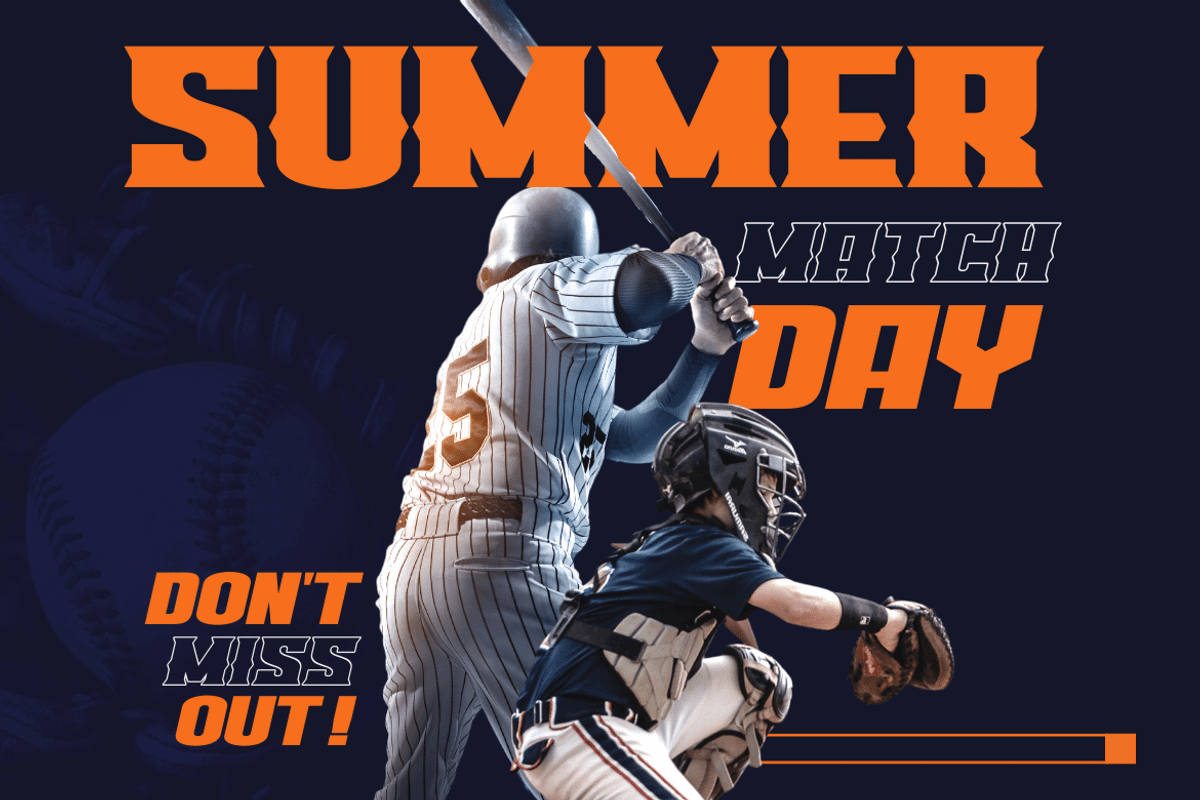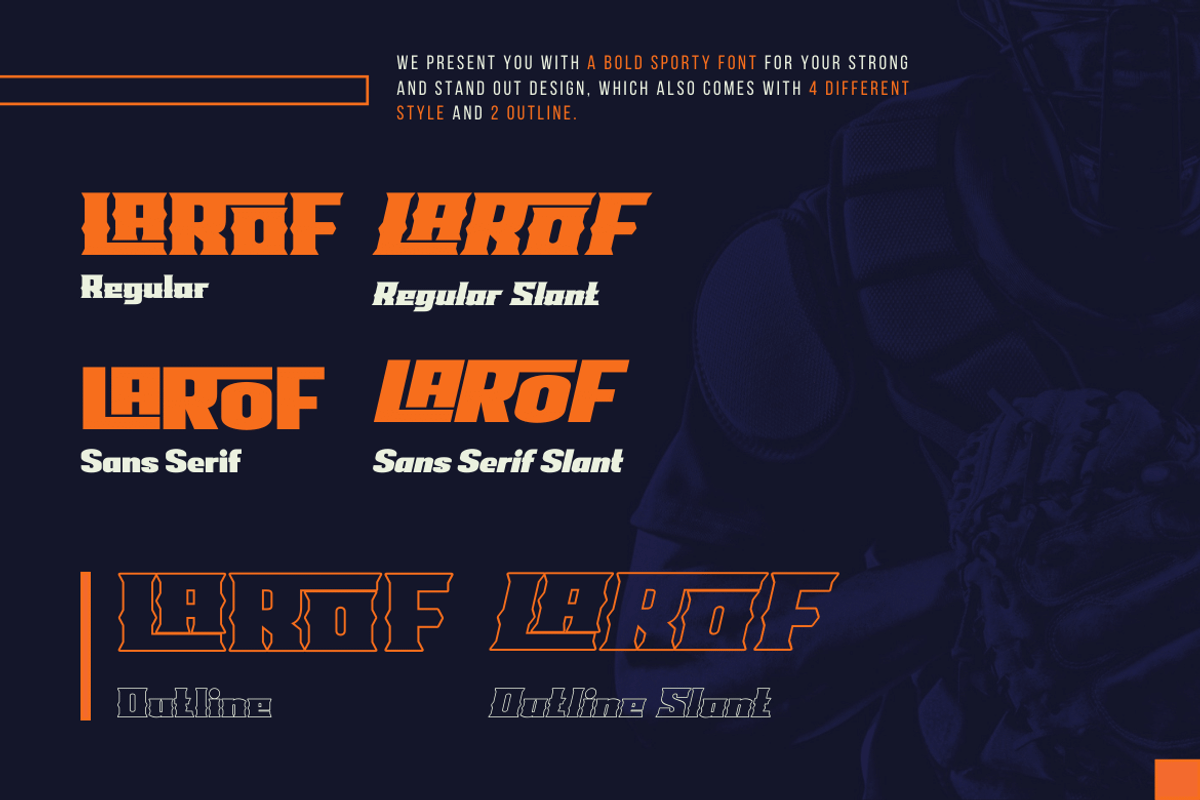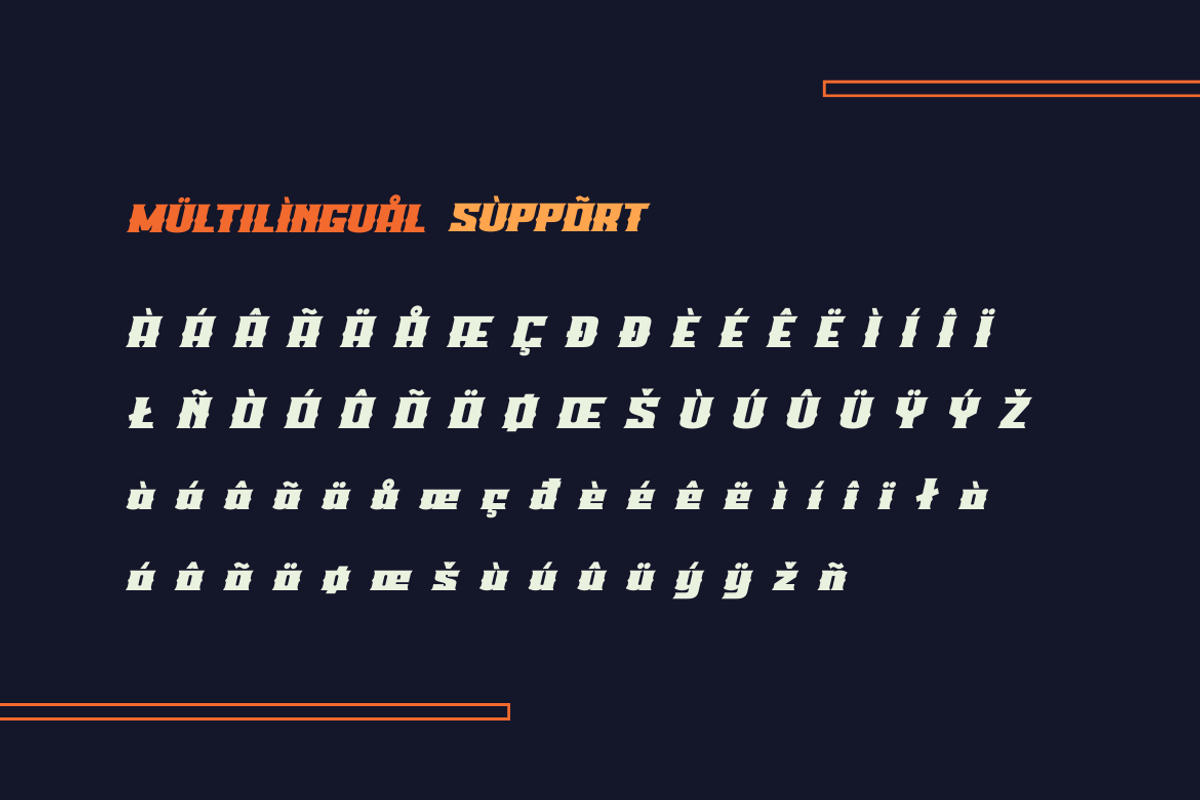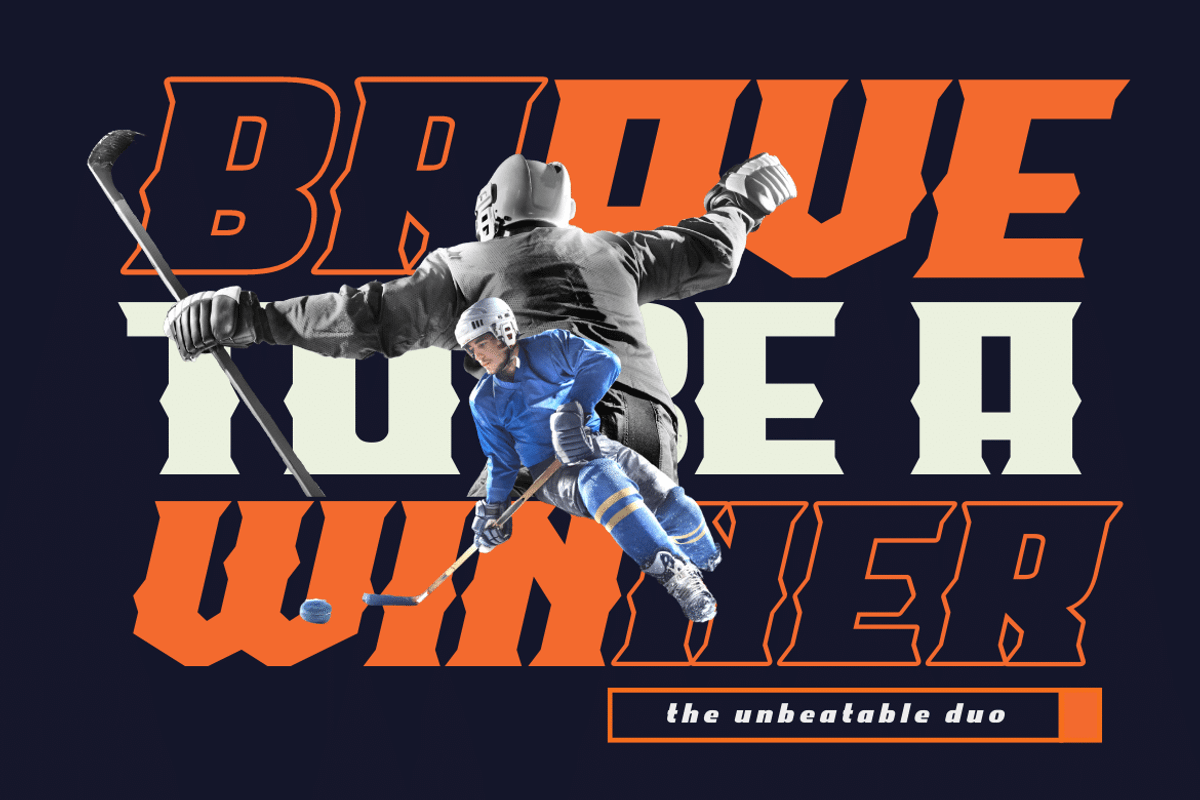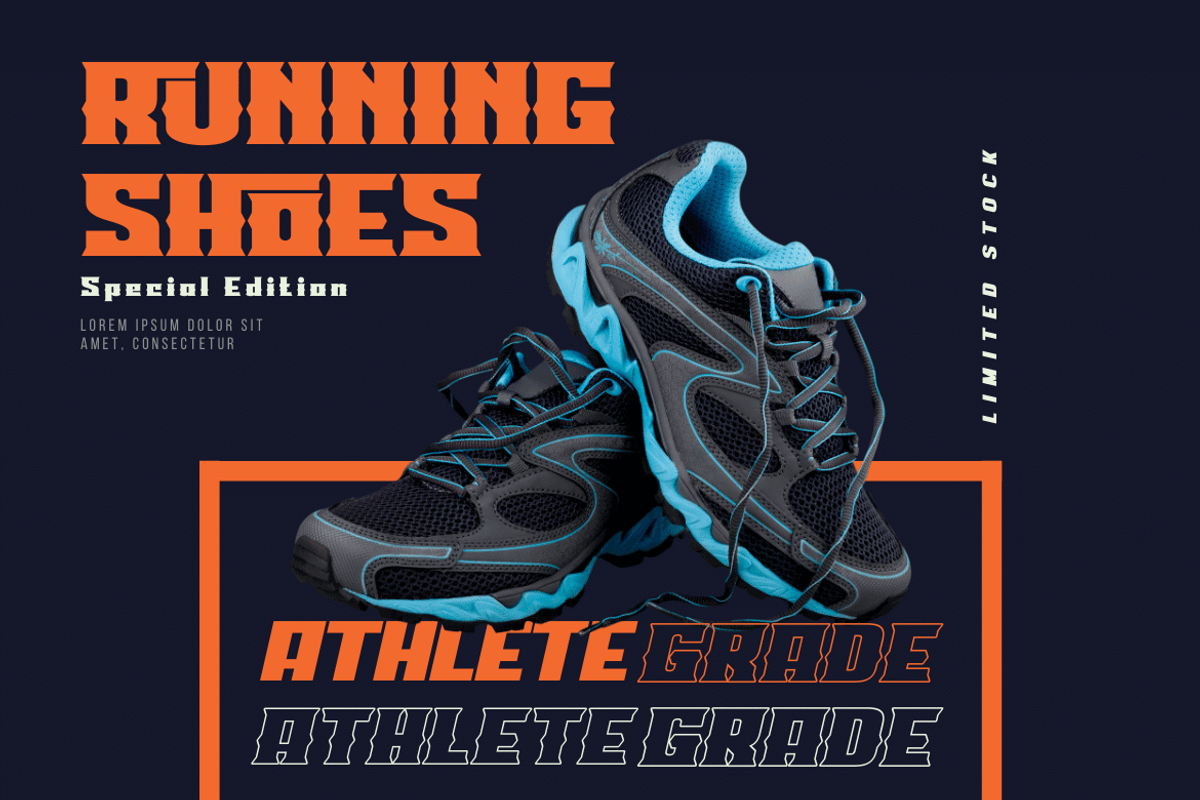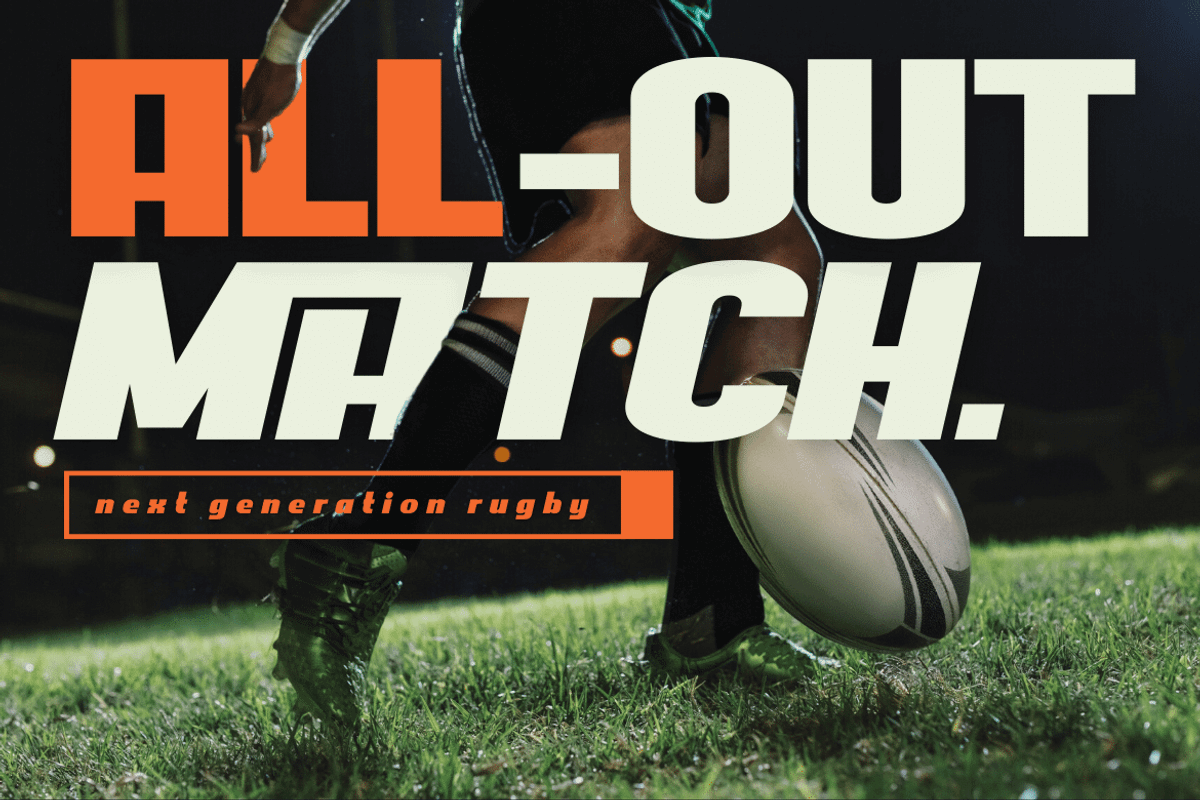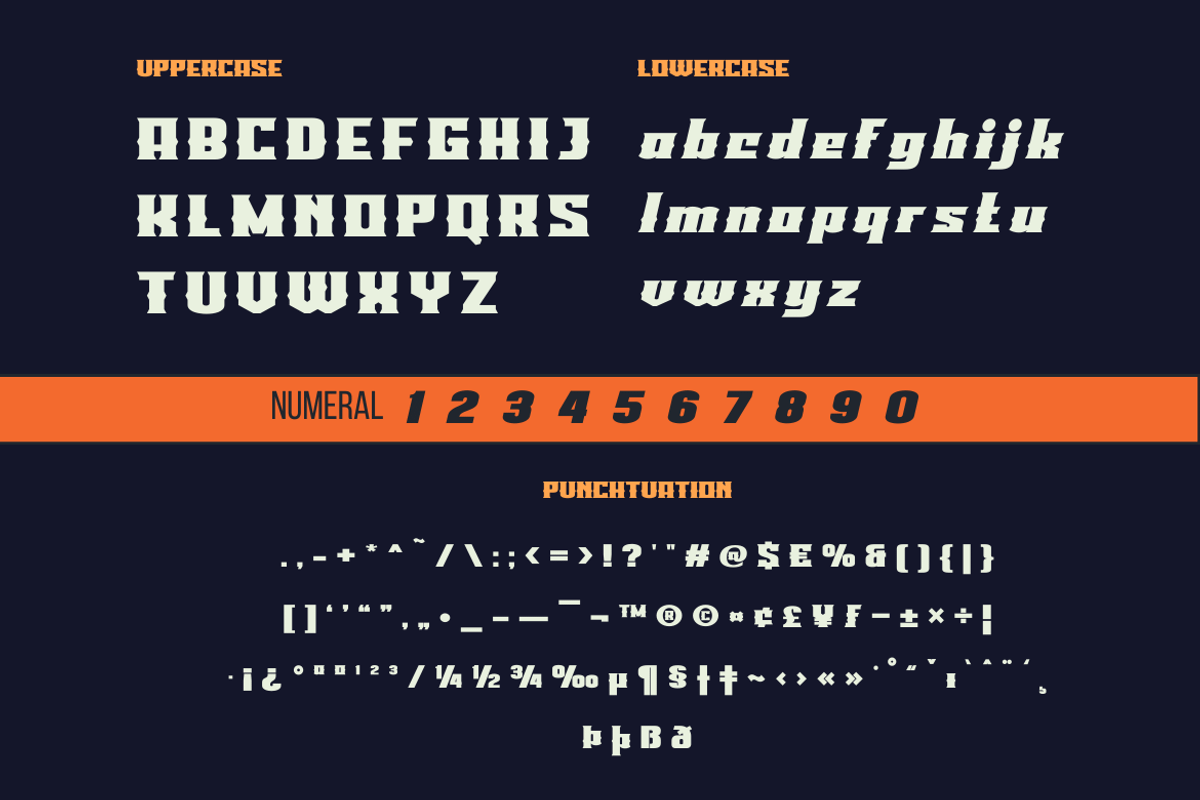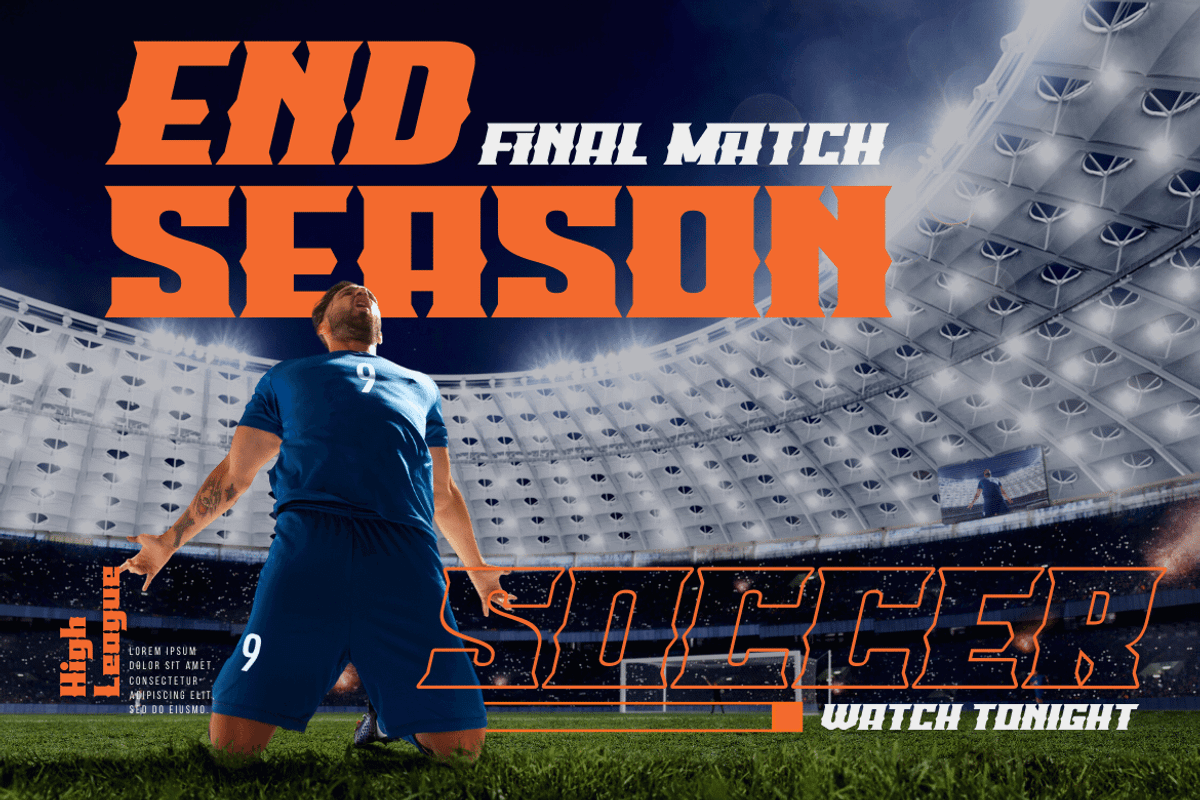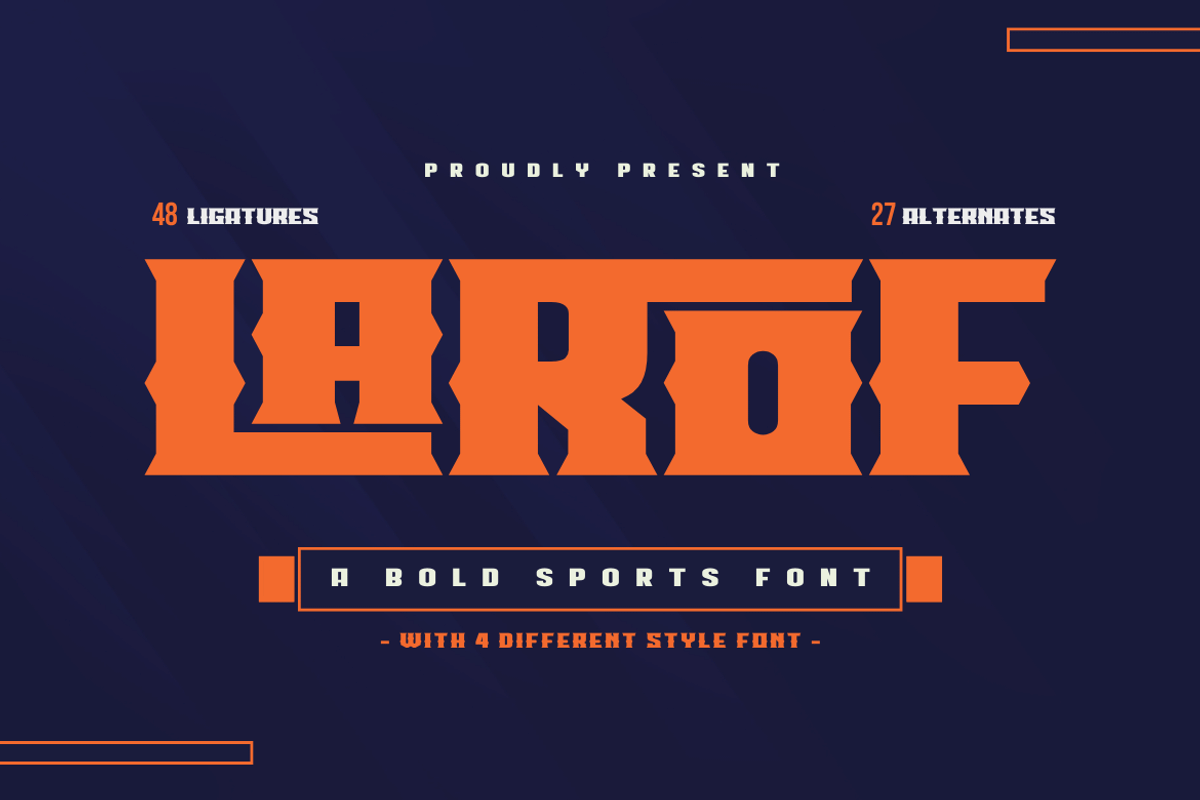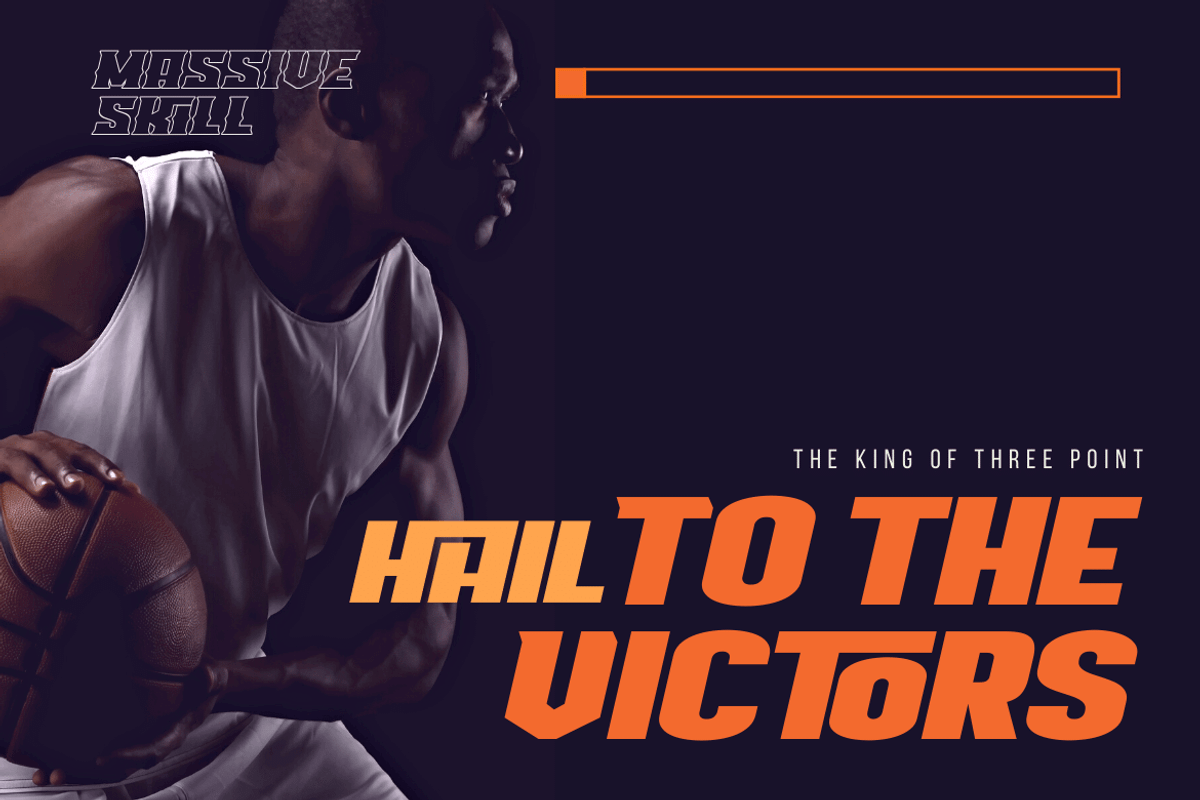
LAROF | Athletic Font
Introducing our newest font, the Larof Sports Font Family is an American sports graphic combination display font family inspired by classic and vintage styles, but with an eye for modernity. This font includes many shapes, perfect for logos, greeting cards, quotes, posters, branding, business cards, stationery, design titles, and so on. This font is also enriched with 6 styles of choice, which of course makes it easy for you to use it in various kinds of projects according to the theme you want. What are you waiting for, use this font and get an extraordinary visual project.
- Alternate, Ligature